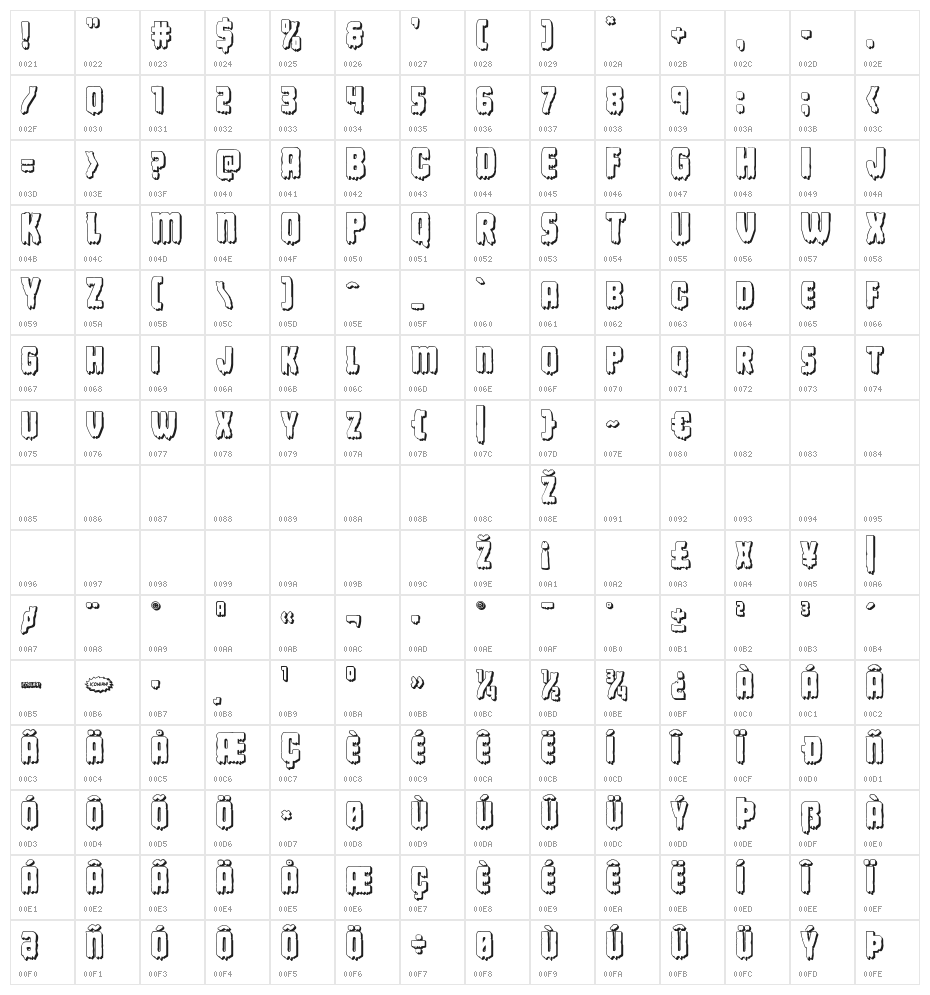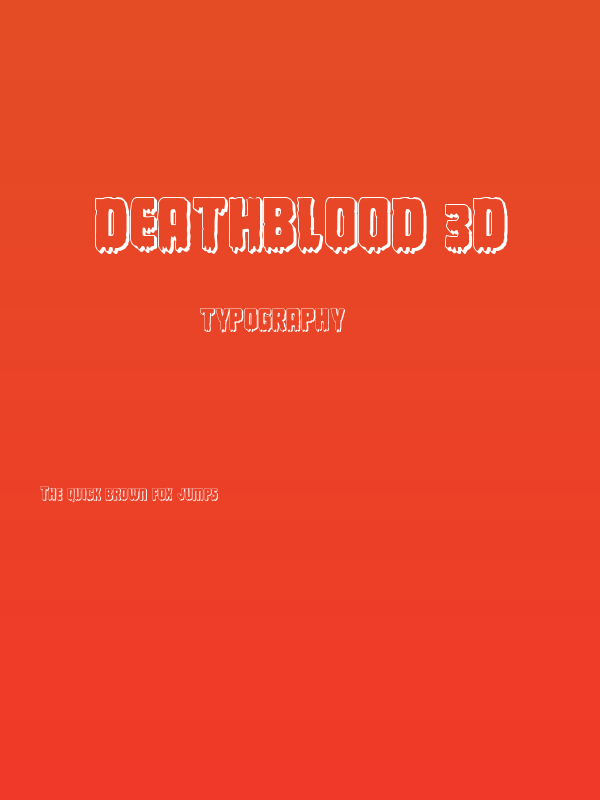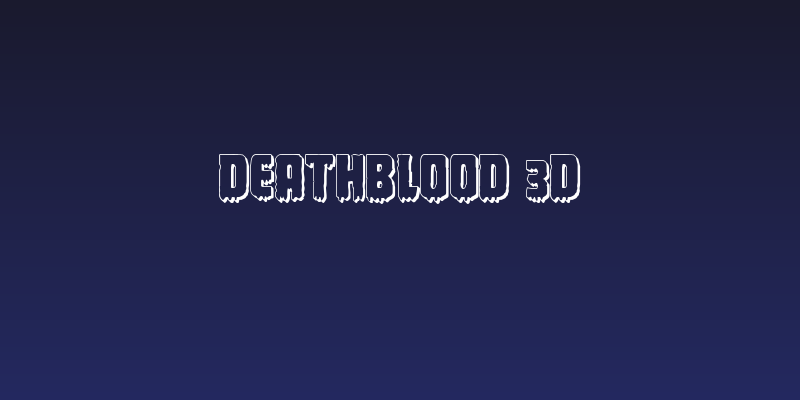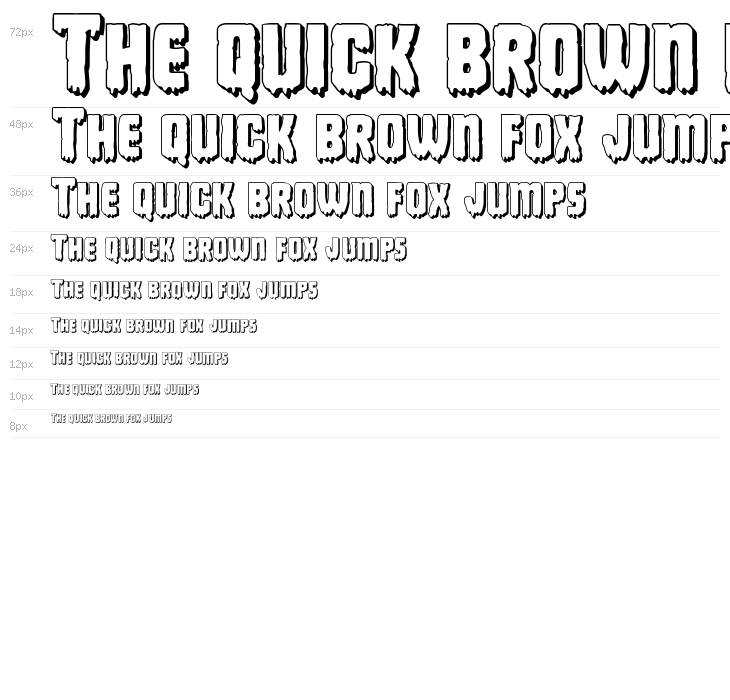
Deathblood 3D Font
Deathblood 3D Description
This font features a bold, dripping style that evokes a sense of horror and mystery. The characters are designed with a three-dimensional effect, giving them a shadowed appearance that enhances their dramatic impact. Each letter appears as if it is melting or dripping, adding a dynamic and eerie quality. The font is highly stylized, making it ideal for projects that require a strong visual statement. Its unique design captures attention and is perfect for themes related to Halloween, horror, or anything that requires a spooky or edgy aesthetic.
| Proposed Projects | Ideal for Halloween-themed graphics, horror movie posters, spooky event invitations, and edgy branding projects. |